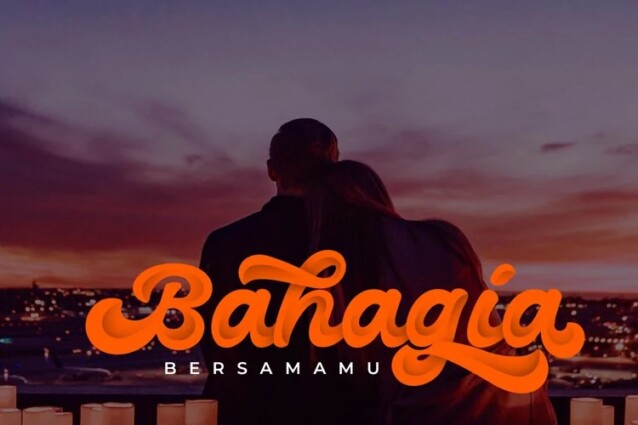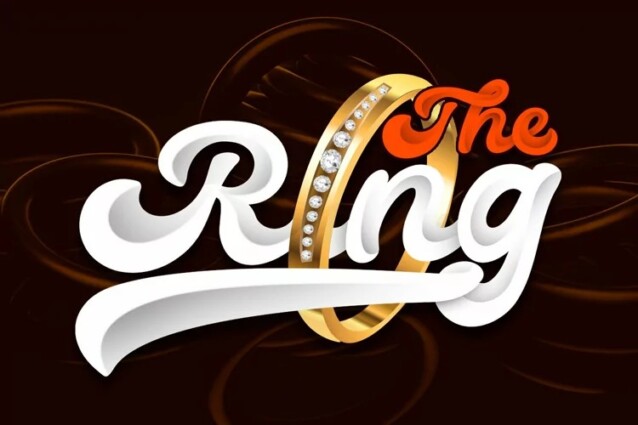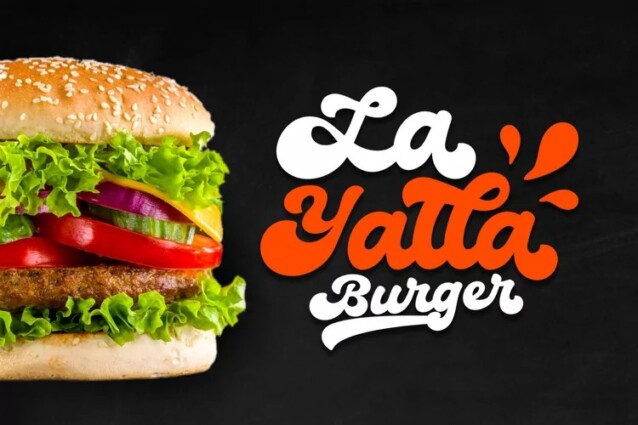
Fladeo Font
Fladeo Font is a meticulously crafted script font from afredo.fk that strikes the perfect balance between graceful curves and distinctive personality. So beautiful on branding materials, business cards, quotes, posters, logo and more!!